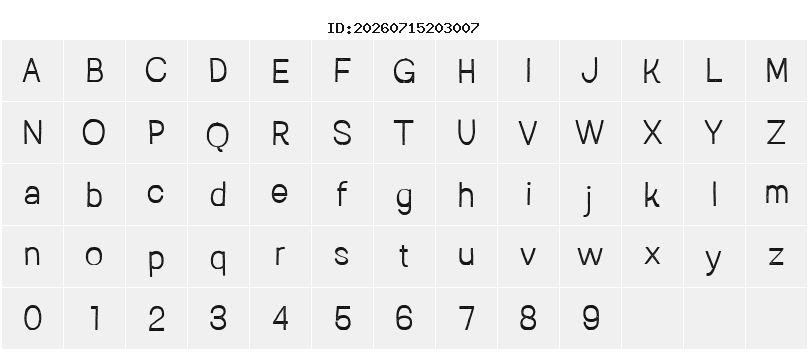
• Font Name: Austral Sans Stamp Lig
• Font Style: Stamp Light
• Font ID: JuliaMartinezDiana,Antipixel: Austral Sans Stamp Light: 2016
• Full Font Name: Austral Sans Stamp Light
• PostScript Name: AustralSansStamp-Light
• Designer: Julia Martinez Diana, Antipixel
• Manufacturer: Julia Martinez Diana, Antipixel
About Austral Sans Stamp Lig.ttf
Austral Sans Stamp Lig.ttf is a modern, elegant sans-serif font designed for ultimate readability and visual harmony. Perfect for branding, headlines, web design, and print materials.